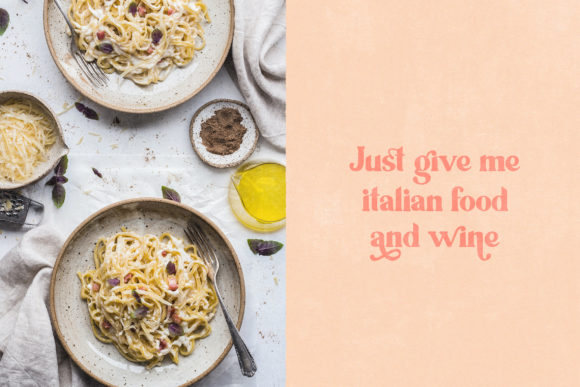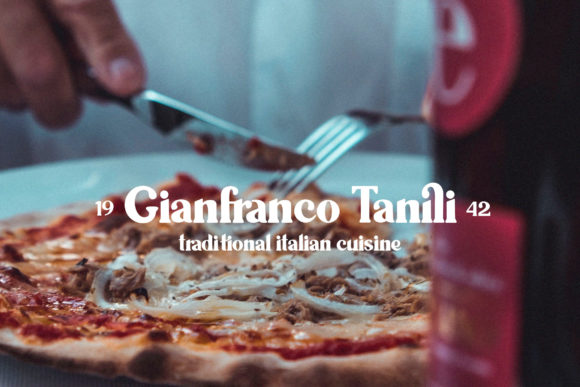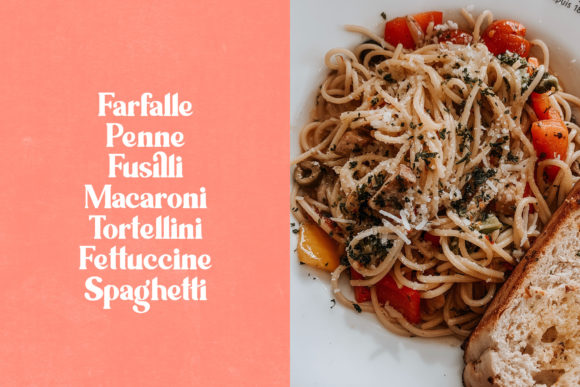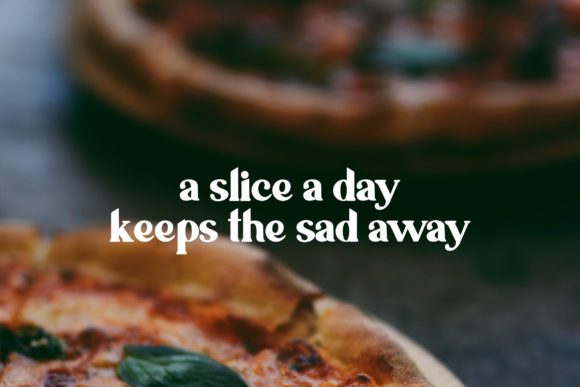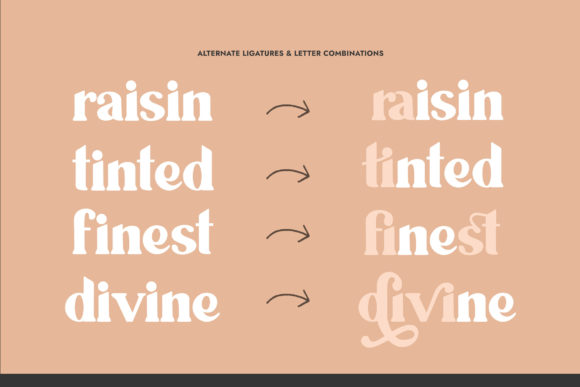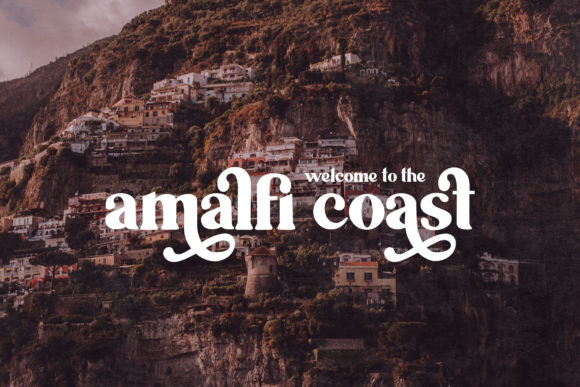
Introduction to Ravioli Font
You know that moment when you’re brainstorming ideas for a creative project and you need the perfect design resource to bring it all together? The one that makes your concept stand out from the crowd and leaves a lasting impression? For designers, finding that elusive perfect font can be a challenge, but we’ve got the solution – the Ravioli Font.
This cool and chunky lettered serif font is not only visually appealing, but it’s also incredibly versatile, making it perfect for a wide range of high-quality projects. Whether you’re working on a design for a food blog, a restaurant menu, or a travel brochure, Ravioli Font is sure to add a touch of sophistication and elegance to your work.
Key Features of Ravioli Font
- High-quality vector font design, ideal for creative projects requiring a unique and eye-catching font.
- Transparent background, allowing for seamless integration into various design backgrounds and compositions.
- Includes a comprehensive set of glyphs, including uppercase and lowercase letters, numbers, and punctuation marks.
- Perfect for designers looking for a distinctive and creative font to elevate their projects and stand out from the crowd.
Honest Review: Ravioli Font
I recently had the chance to work with the Ravioli Font, and I must say it’s a high-quality addition to any creative project. The design is clean, and the transparent background makes it easy to integrate with any design resource.
What works well: ✨ The font is highly customizable, with a wide range of styles and weights to choose from. It’s perfect for designers looking to add a touch of sophistication to their designs. The font is also free to download, which is a huge plus.
- Wide range of styles and weights
What doesn’t work well: ⚠️ While the font is highly customizable, it can be a bit overwhelming for beginners. The large number of styles and weights can make it difficult to decide which one to use.
Overall, I’m impressed with the Ravioli Font. It’s a solid design resource that can elevate any creative project. If you’re looking for a high-quality font with a transparent background, I’d definitely recommend giving it a try.
Ravioli Font
The Ravioli Font is a high-quality design resource perfect for creative projects that require a unique touch. With its transparent background, this font can be easily layered with other design elements to create visually striking compositions.
To get the most out of Ravioli Font, experiment with different font sizes, colors, and layering techniques. You can also combine Ravioli Font with other design elements, such as images or graphics, to create unique and eye-catching compositions.